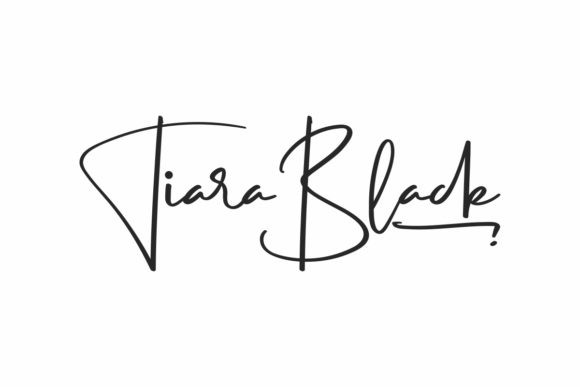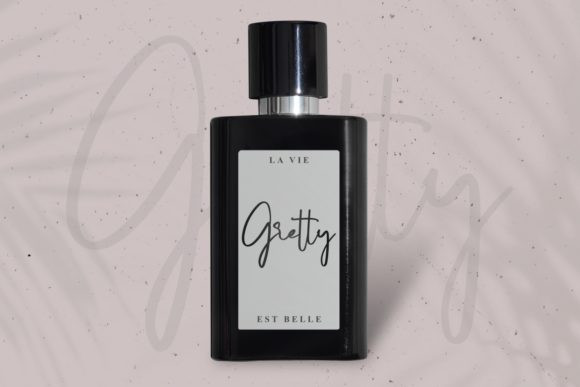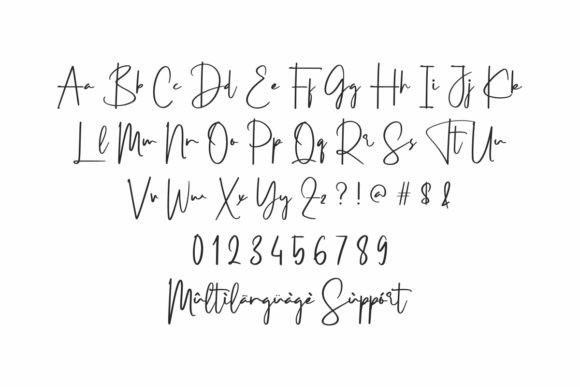
Tiara Black Font
Tiara Black is a stylish handwritten font. It looks beautiful on a variety of designs requiring a personalized style, such as wedding invitations, thank you cards, weddings, greeting cards, logos and so on.